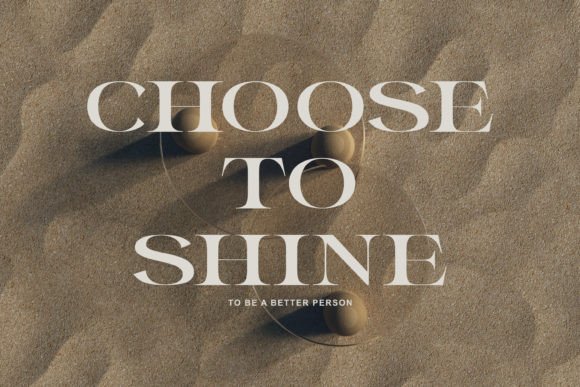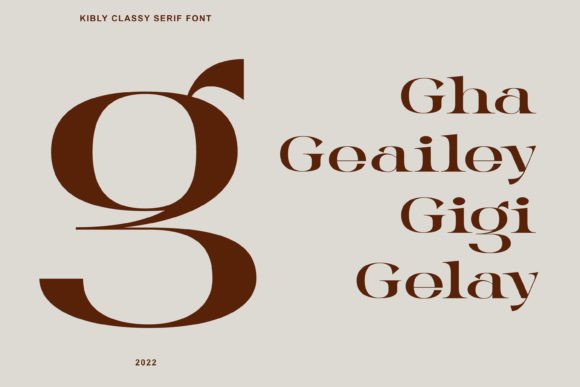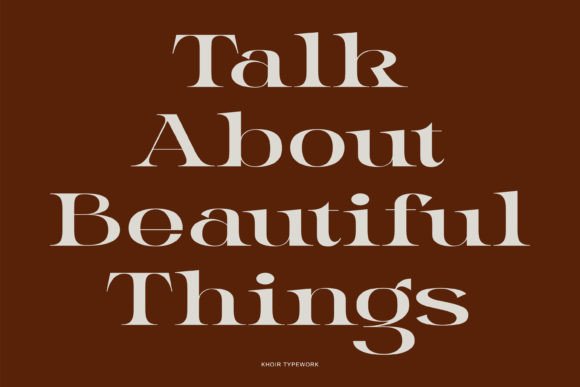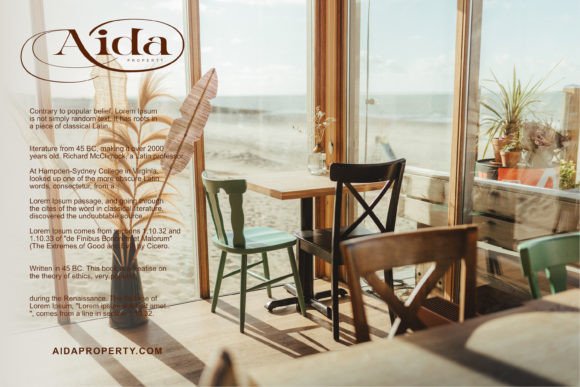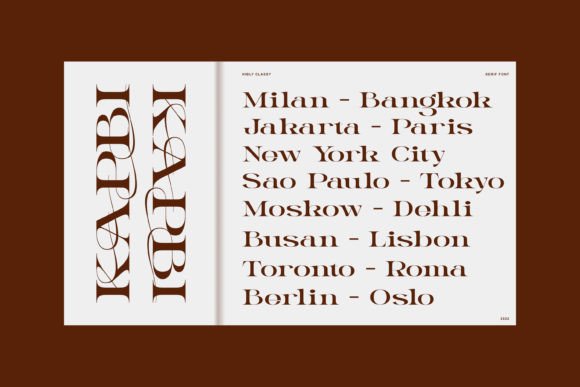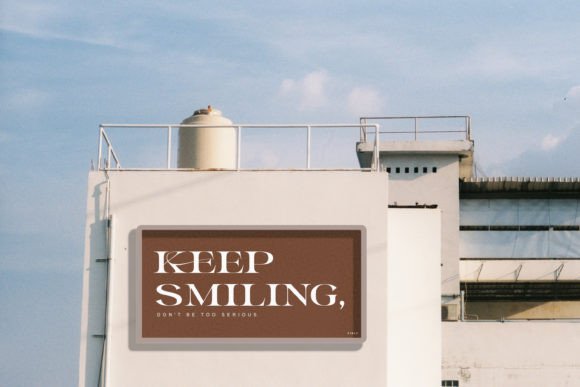
Introduction to Kibly Font Font
Fonts play a crucial role in design, and the Kibly Font font is a typeface that brings both character and versatility to any project. Whether you’re working on a branding project, a website, or a print design, the Kibly Font font offers a unique style that can elevate your work.
Kibly is a clean, classy serif font with beautiful curves and alternative additions that make it look elegant and stylish.
It is great for logo designs, titles, posters, business cards, branding needs, and more .
Key Features of Kibly Font Font
Why Choose Kibly Font Font?
The Kibly Font font is more than just a typeface – it’s a design tool that helps you communicate your message with style and clarity. Its unique character set and versatile design make it suitable for a wide range of applications, from elegant invitations to bold headlines.
With its carefully crafted letterforms and balanced proportions, the Kibly Font font ensures readability and visual appeal across all mediums.
What makes Kibly Font font special?
The Kibly Font font stands out with its unique design, exceptional readability, and versatility across various design applications.